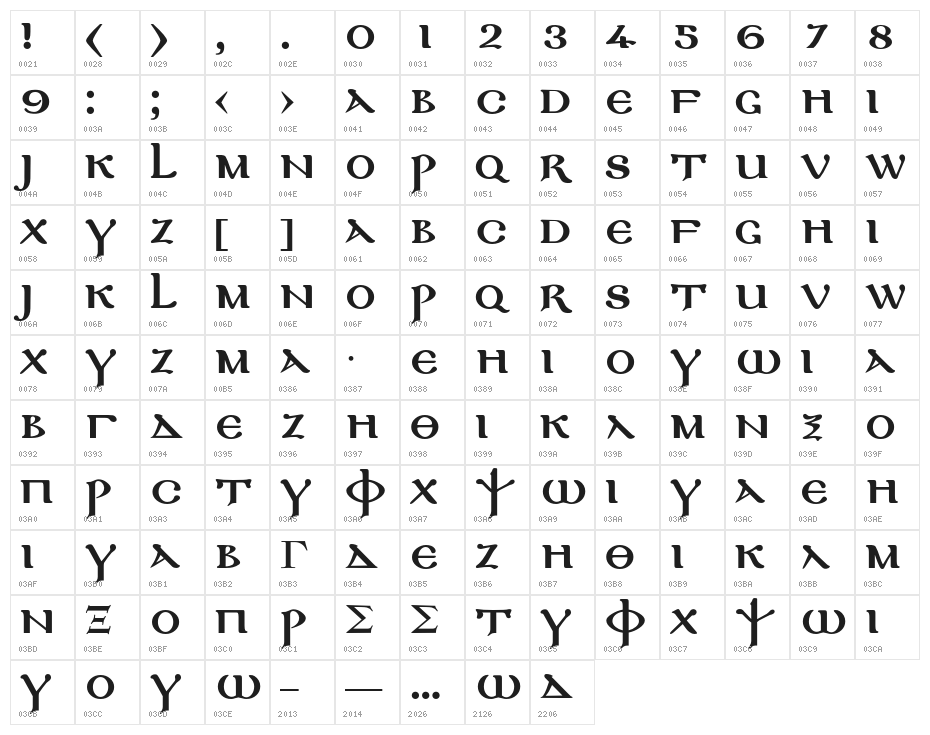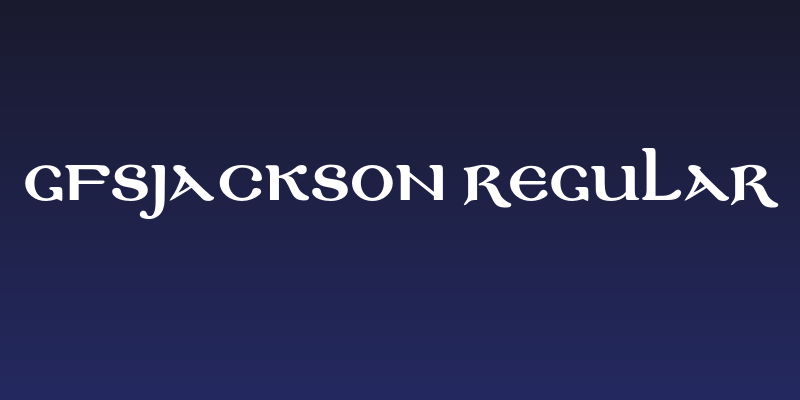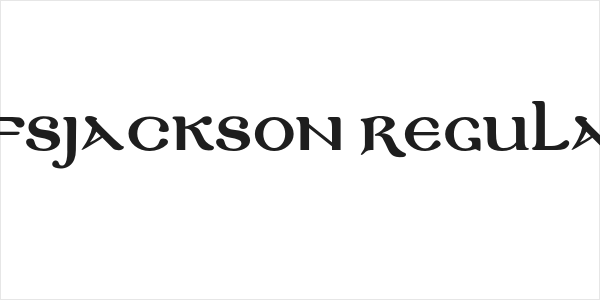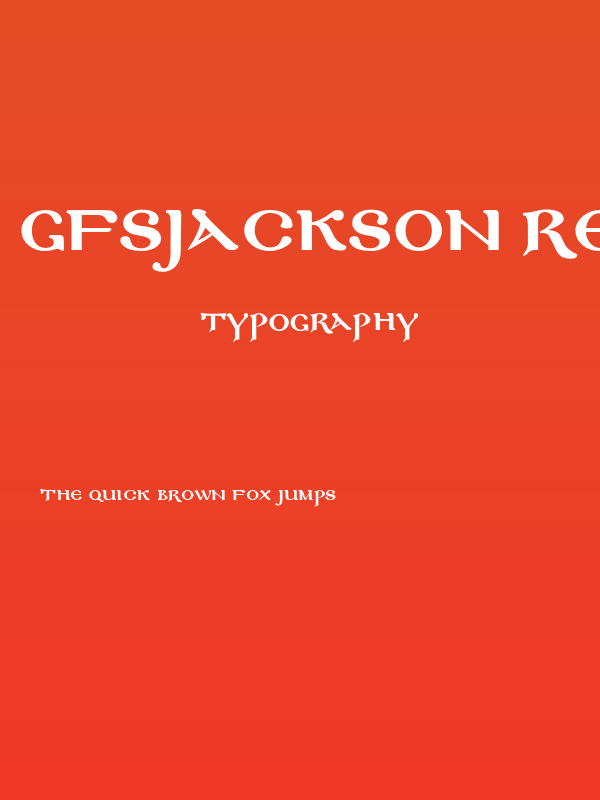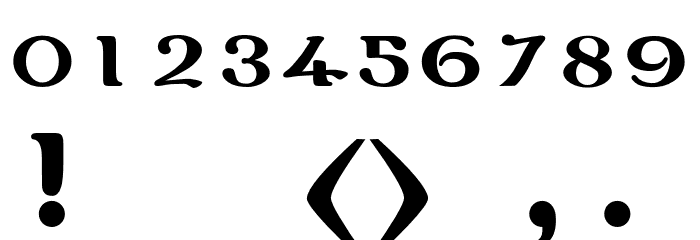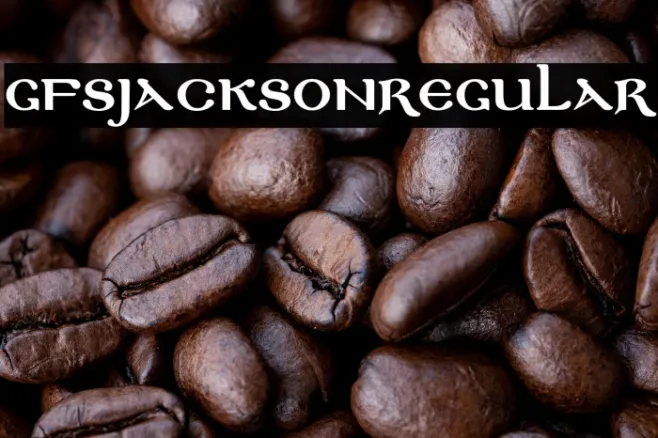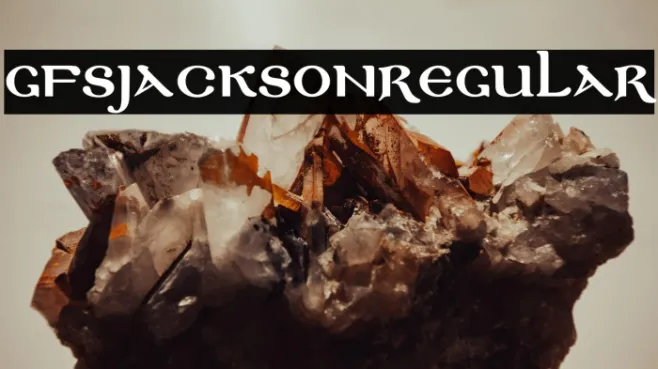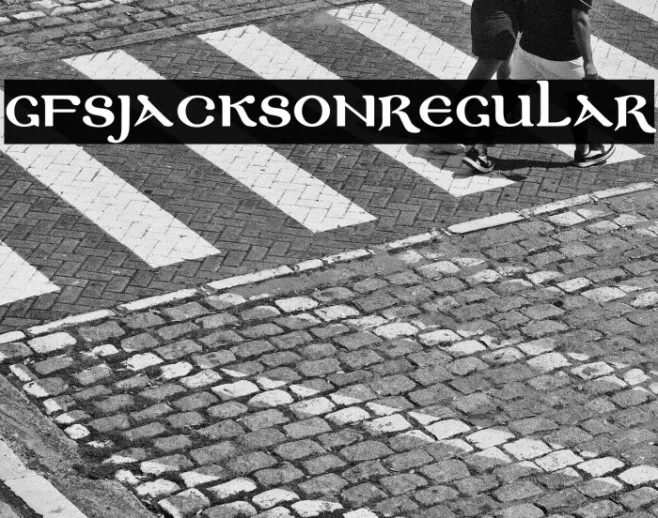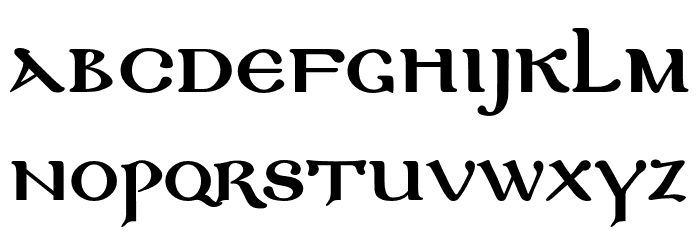
GFSJackson-Regular Font
GFSJackson-Regular Description
This font features a distinctive, historical style with sharp, angular serifs and a bold presence. The uppercase letters have a unique, almost calligraphic flair, with pronounced curves and edges that give them a medieval or Gothic appearance. The lowercase letters maintain this theme, offering a consistent aesthetic throughout. The numerals are equally stylized, with a strong, authoritative look. Special characters are designed to match the overall theme, providing a cohesive visual experience. The font's design is both decorative and functional, suitable for projects that require a touch of elegance and tradition.
| Use Case | Headlines, Logos, Decorative text |
| Proposed Projects | Ideal for historical documents, fantasy book covers, themed event invitations, and decorative signage. |